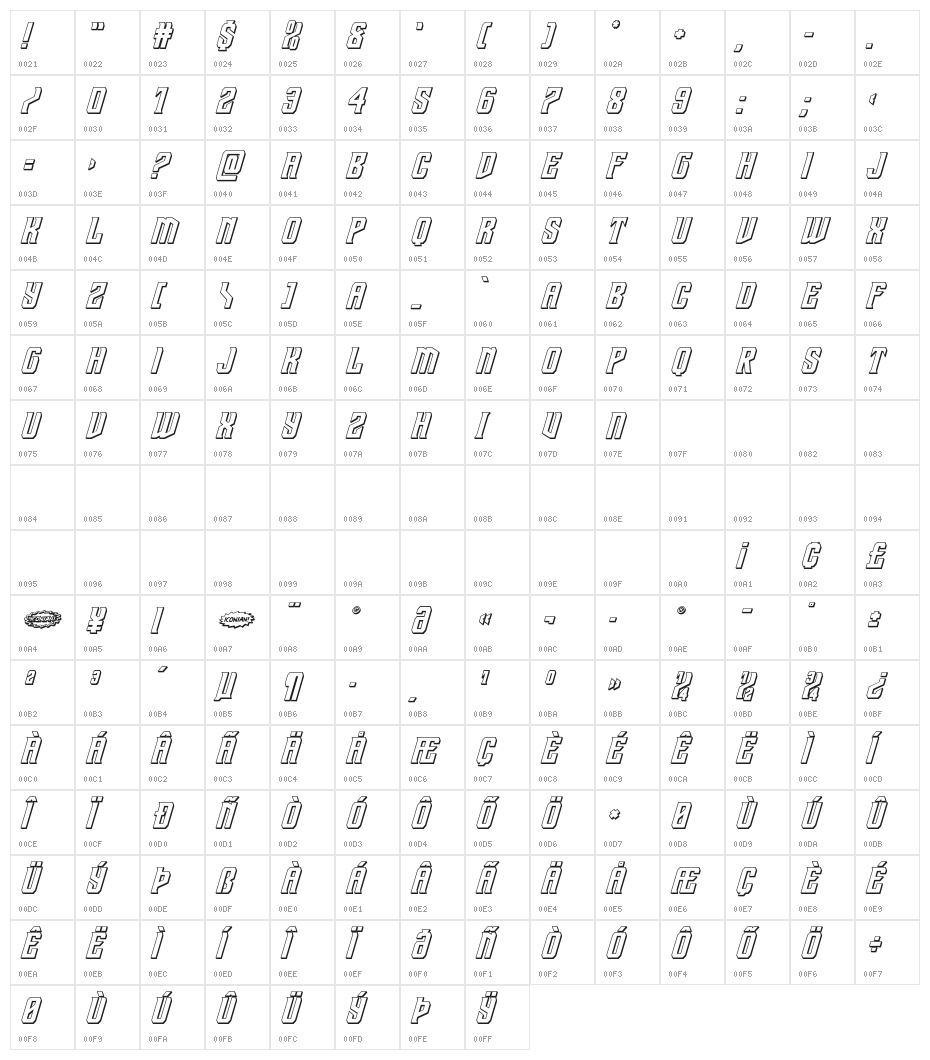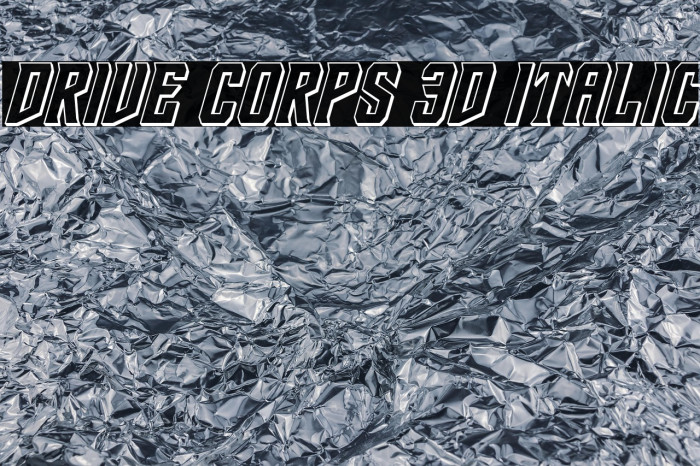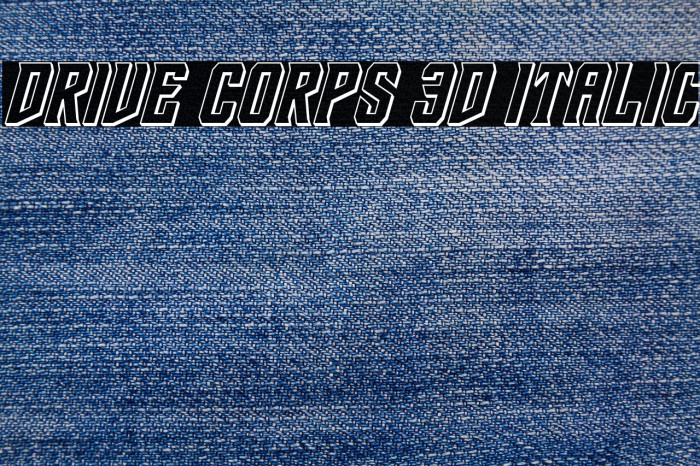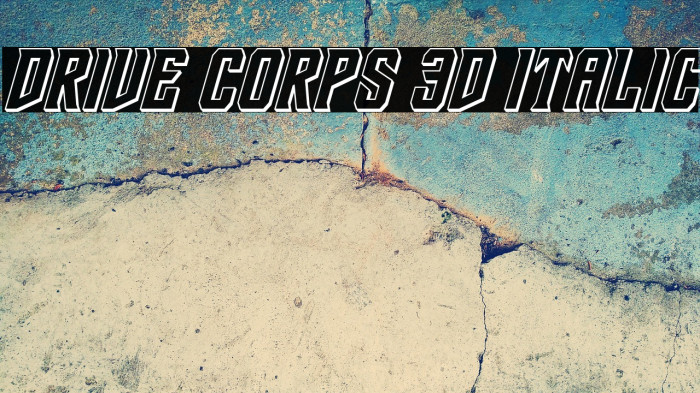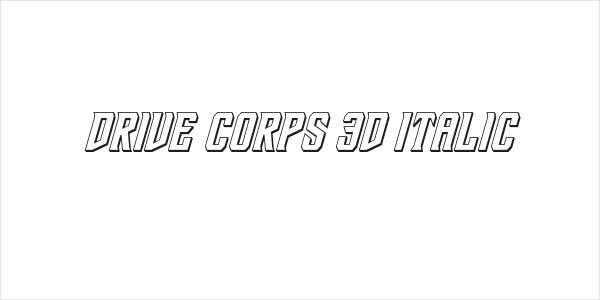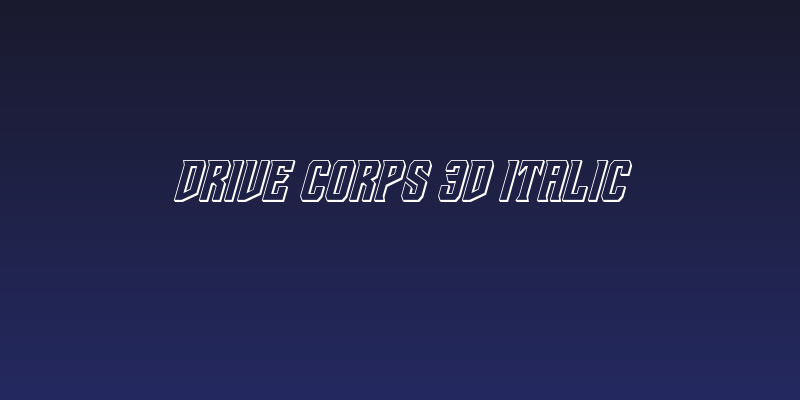
Drive Corps 3D Italic Font
Drive Corps 3D Italic Description
This font features a bold, three-dimensional design with an italic slant, giving it a dynamic and futuristic appearance. The characters are outlined, creating a sense of depth and movement. The uppercase and lowercase letters maintain a consistent style, with sharp angles and clean lines. The numbers and special characters are designed to match the bold and impactful aesthetic, making them stand out. This font is ideal for projects that require a strong visual impact and a modern, edgy look.
| Proposed Projects | Ideal for video game titles, sports branding, tech-related logos, and dynamic posters. |